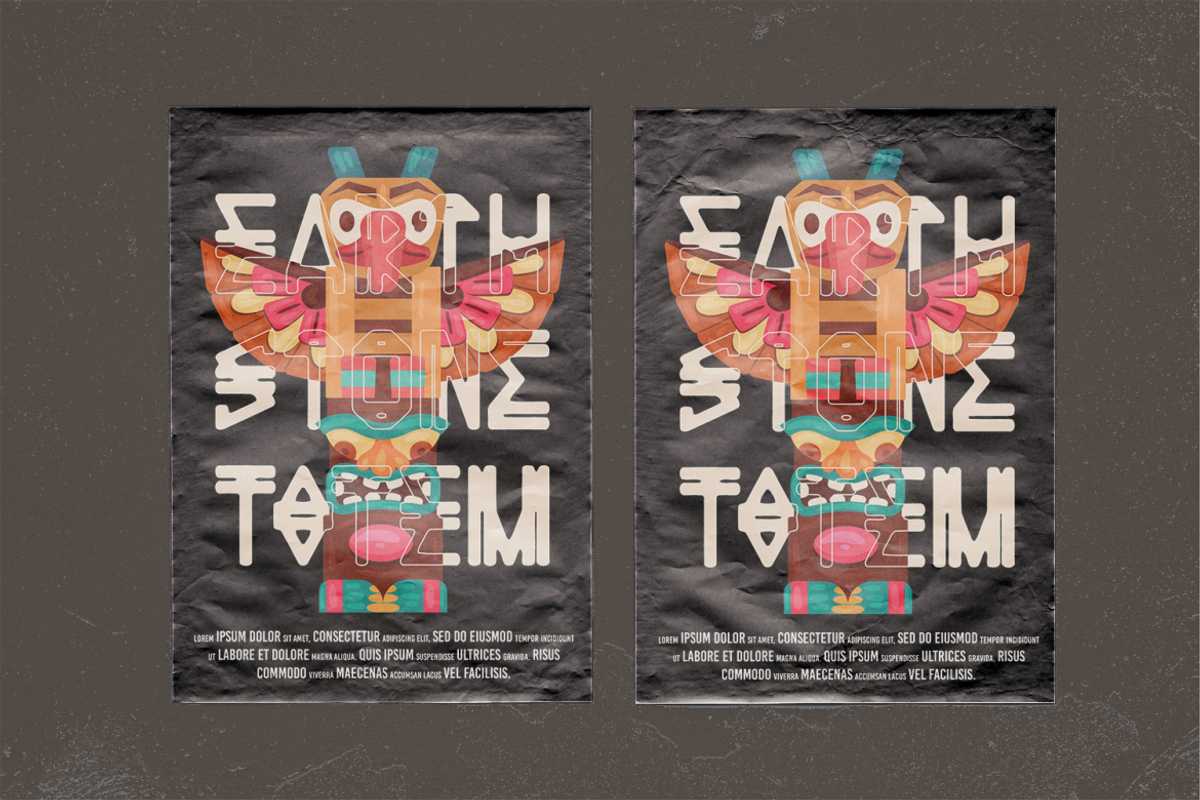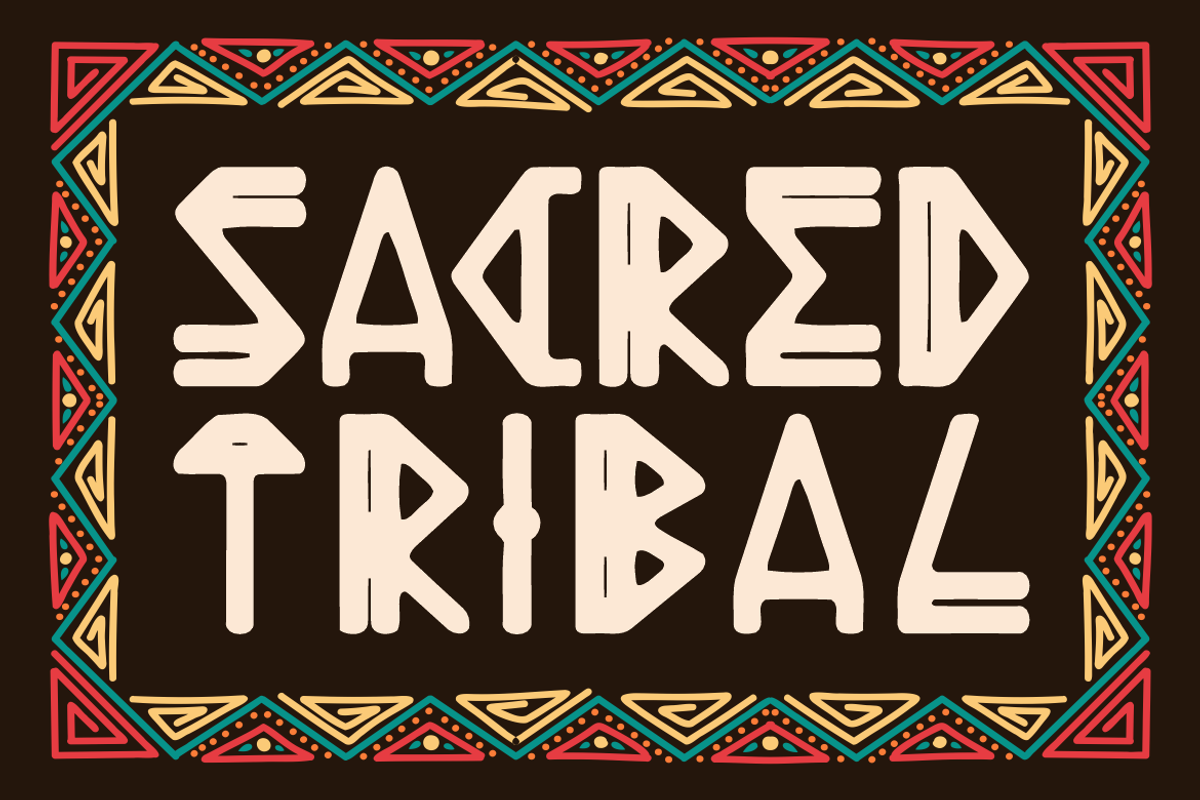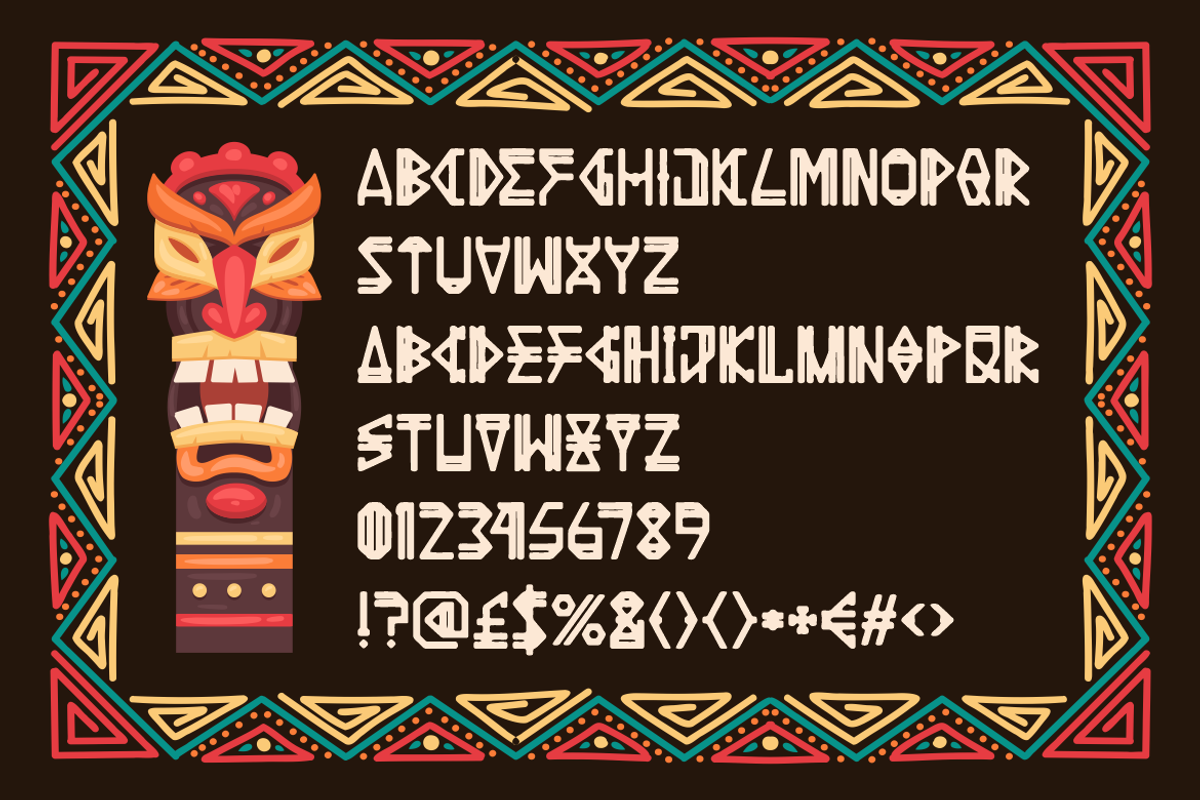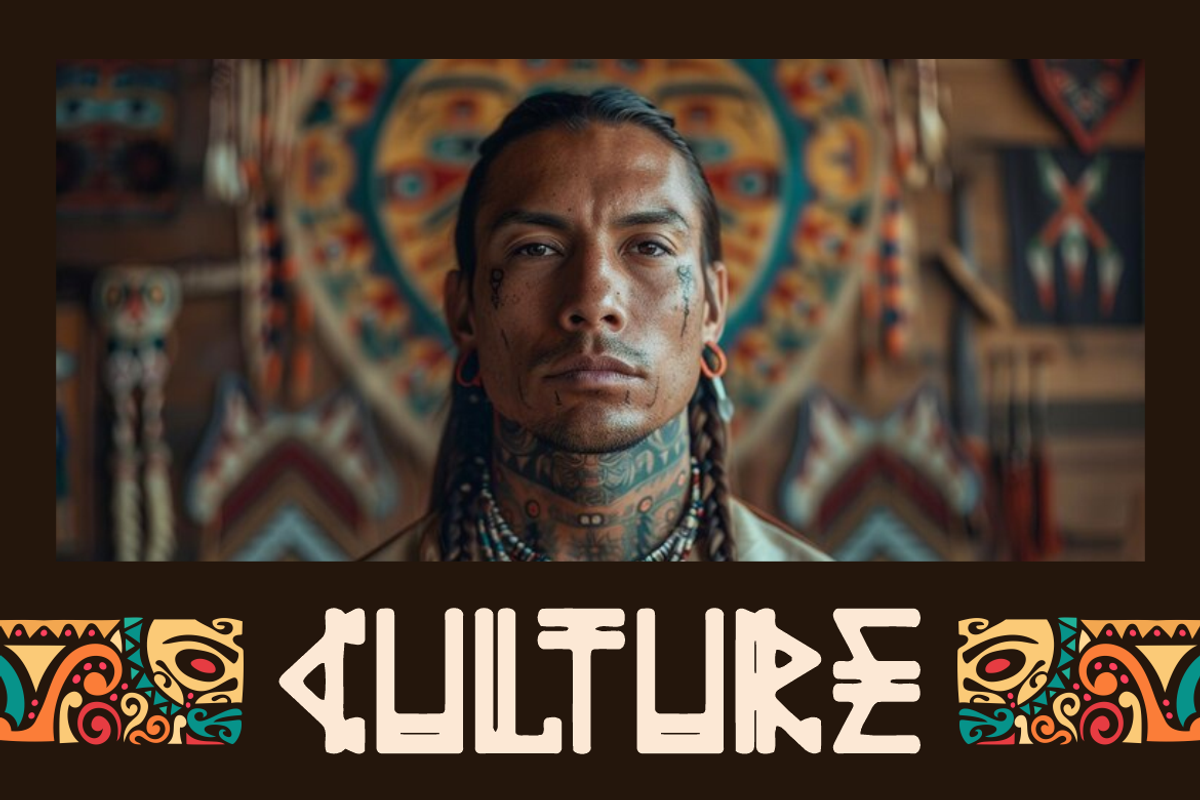
Ancient Legend Nomadic And Tribal
Ancient Legend is a bold tribal-inspired display font that fuses primitive aesthetics with rich cultural symbolism. Its sharp angles, rhythmic geometry, and hand-carved impression echo the sacred totems and nomadic heritage of ancient tribes. The unique letterforms evoke ceremonial artifacts and stone engravings, offering visual strength and timeless storytelling. This font is perfect for branding projects that want to embrace organic roots and mystical energy in a modern composition.
Designed for maximum impact, Ancient Legend delivers authenticity in ethnic posters, tribal event titles, logo designs, and cultural product packaging. It supports uppercase characters, numerals, and a complete set of tribal-style punctuation marks. The font shines best in large formats, where its primitive details stand out vividly. Use it on book covers, T-shirts, album titles, and editorial headlines to capture raw, ancestral power. Ancient Legend transforms ordinary text into sacred visual narratives.